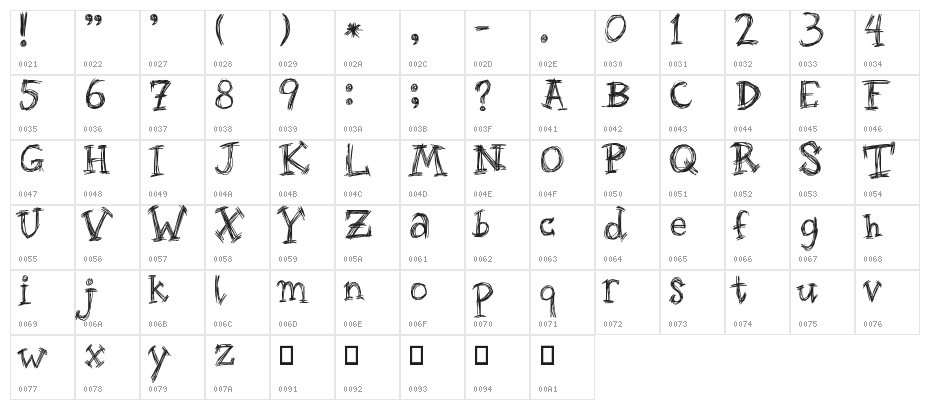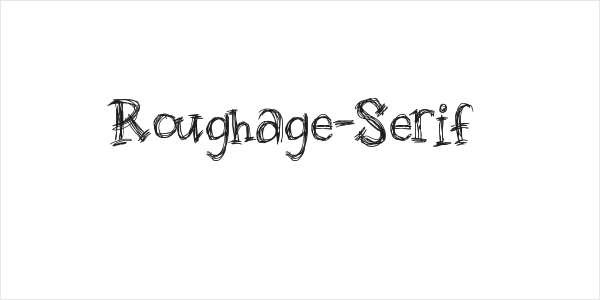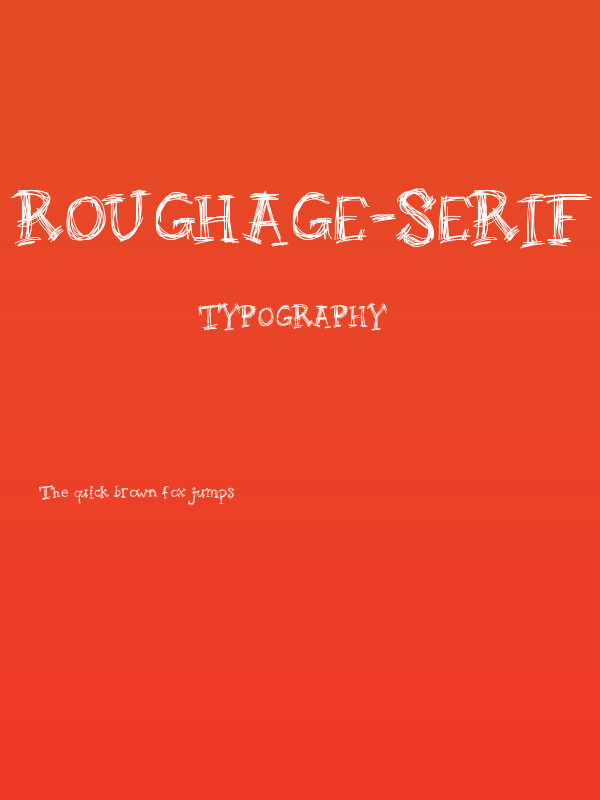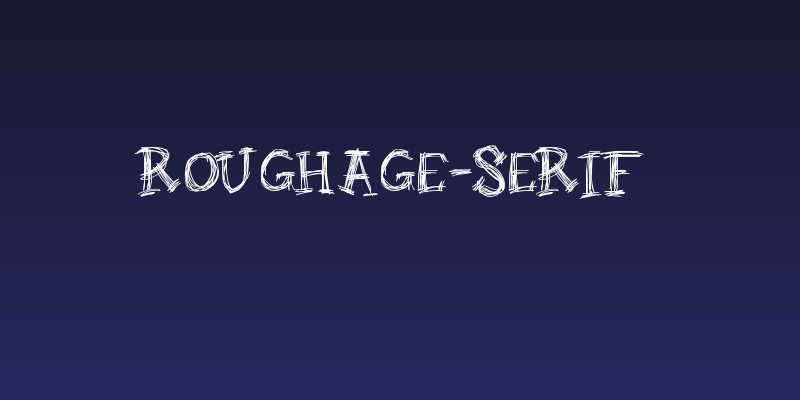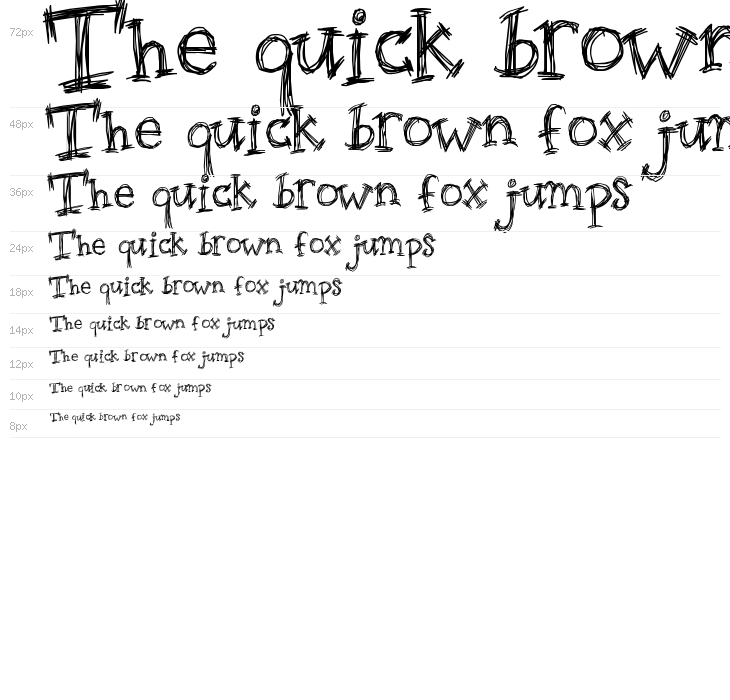
Roughage-Serif Font
This font features a rugged, hand-drawn style with a distinctively rough texture. The characters are bold and expressive, with uneven strokes that give a sense of movement and energy. Each letter appears as if sketched with a pen, adding a personal and artistic touch. The uppercase and lowercase letters maintain a consistent style, while the numbers and special characters complement the overall design. This font is perfect for projects that require a raw, organic feel, making it ideal for creative and artistic endeavors.
Use CaseHeadlines, Logos, Artistic projects
Proposed ProjectsIdeal for artistic projects, posters, album covers, and any design needing a raw, organic touch.